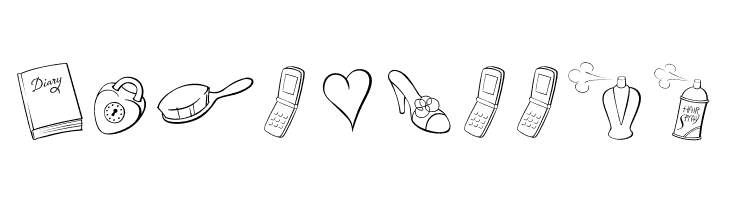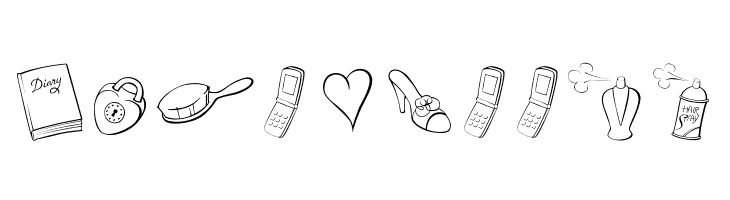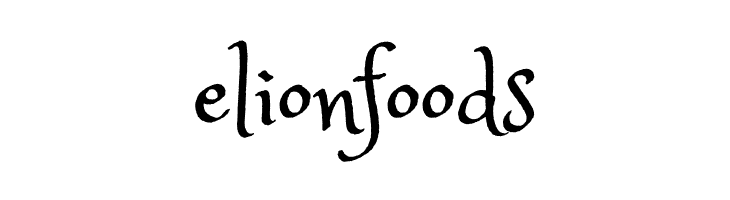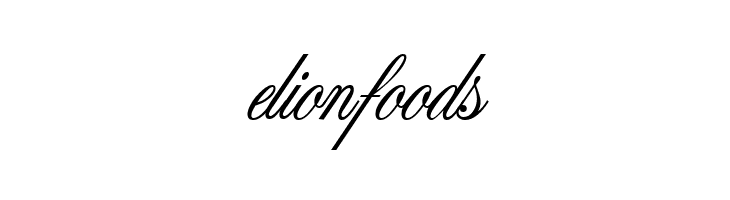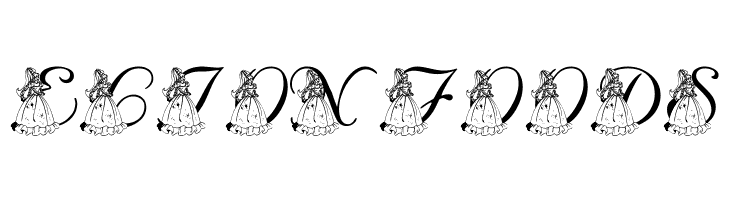
Princess Sofia Font
An elegant and whimsical script font with decorative swirls and playful flourishes.
Jellyka Western Princess Font
A whimsical, cursive script font with elegant loops and swirls.
PrincesS AND THE FROG Font
A classic serif font with elegant swashes and refined letterforms.
Knife Princess Font
Cyber Princess Regular Font
A bold, geometric font with a futuristic and digital aesthetic.
Cyber Princess Italic Font
A futuristic, italic font with bold, angular characters and a modern aesthetic.
AL Princess Jasmine Font
An ornate, decorative font with floral embellishments and calligraphic elements.
Little Princess Font
A playful, handwritten font with a smooth, flowing style.
Magical Unicorn Princess Font
A whimsical, fantasy-themed font with intricate, magical details.
AL Cinderella Font
An elegant script font with ornate flourishes and a refined style.
Princess Lulu Font
An intricate, medieval-inspired font with bold, angular lines and elegant curves.
Princess Font
An elegant and sophisticated script font with flowing, cursive letterforms.
Perfect Princess Font
A bold, geometric font with strong, block-like characters ideal for impactful designs.
Princess Angela Font
A playful, handwritten font with dynamic strokes and whimsical curves.
Diana the Princess Font
Portrait-based decorative display font with high-contrast stencil effect.
Princess Alexis Font
A bold, decorative font with playful striped shadows and curvy strokes.
Princess BV Font
A decorative set of feminine-themed icons and symbols.
Princesse Muffin Font
A playful, handwritten font with whimsical and elegant characteristics.
Ukrainian Princess Shadow Regular Font
A bold, playful font with a shadow effect for added depth.
Dirty Princess Font
AL Princess Snow White Font
An elegant script font with intricate swirls and a classic calligraphic style.